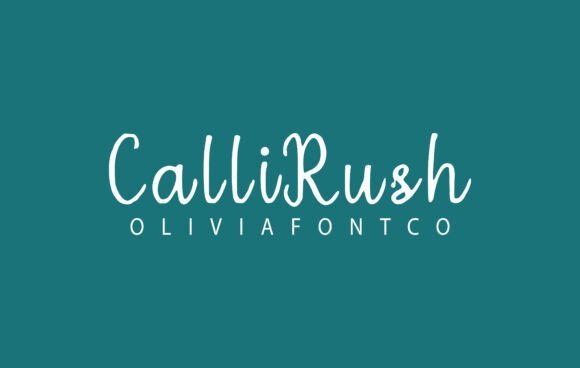
The Perfect Script for Your Creative Masterpiece
Have you ever been stuck in front of your computer, staring at a blank page, trying to find the perfect font to bring your creative idea to life? You’re not alone. We’ve all been there, searching for that elusive font that captures the essence of our vision. For designers and creatives, finding the right font can be a daunting task, but what if I told you there’s a font that can elevate your work and make it truly unforgettable?
Enter the Callirush Font, a beautifully crafted handwritten font that exudes a romantic touch. This stunning font is expertly designed to add a personal and emotional touch to any design project. Whether you’re working on a magazine headline, social media post, or wedding invitation, the Callirush Font is sure to impress.
For designers, the Callirush Font is a valuable asset, offering a unique and stylish way to express themselves and connect with their audience. Its legibility and versatility make it perfect for a wide range of design applications, from titles to body text. So why settle for an ordinary font when you can have the extraordinary Callirush Font?
Callirush Font Key Features
- Unique Characteristics: The Callirush font features a unique blend of modern and elegant design elements, making it ideal for use in luxury branding, high-end packaging, and sophisticated digital designs.
- Font Metrics: The font has been carefully designed to provide excellent readability, with x-heights and stem widths that are optimized for clear and legible text rendering.
Callirush Font Review
Overall, I found the Callirush font to be quite intriguing and visually appealing. ✨ The elegant, cursive script style lends itself well to creative and artistic applications. ✨ I particularly appreciate the various font weights and styles that are included, which add to the versatility of the font.
However, I do have a few reservations about the font’s usability. ⚠️ One of the main issues I encountered was the relatively low legibility of the font at smaller font sizes. This may be a problem for applications where text needs to be displayed in a compact format, such as in body text or captions.
Another limitation I noticed was the somewhat limited language support. ⚠️ While the font includes support for a decent number of languages, it’s not comprehensive, which may be a concern for designers who need to create content in multiple languages.
- ✨ Elegant, cursive script style
- ✨ Multiple font weights and styles
- ⚠️ Low legibility at smaller font sizes
- ⚠️ Limited language support
Despite these limitations, I think the Callirush font has a lot to offer designers who are looking for a unique and stylish font for their creative projects.
Getting the Most Out of Callirush Font
Some tips for getting the most out of the Callirush font include:
– Using it in combination with other elegant fonts for a sophisticated look.
– Experimenting with different font sizes and colors to create visual interest.
– Using the font for titles and headings to add emphasis.
The Callirush font is well-suited for:
– Wedding invitations and stationery.
– Luxury branding and packaging.
– High-end marketing materials and brochures.
Can I customize the Callirush Font?
The Callirush Font is a highly customizable typeface, with a wide range of features and options available. You can adjust the font’s weight, style, and spacing to suit your design needs, and also use the font’s advanced OpenType features, such as ligatures and contextual alternates, to add unique flair to your designs.